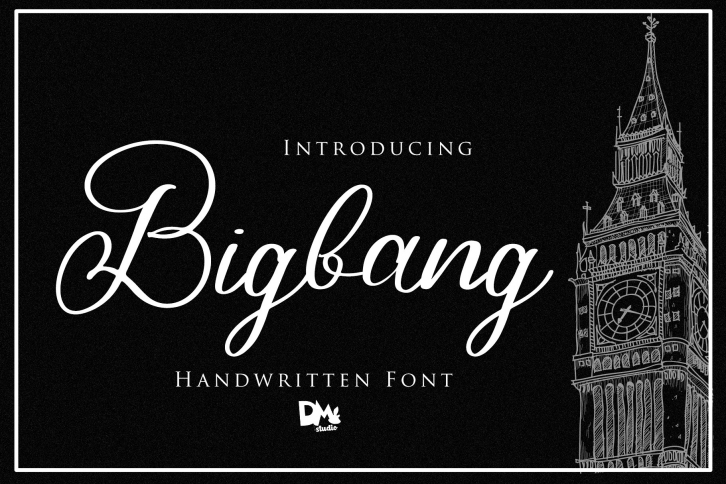
Introducing, BigBang Handwritten font
It's a modern and natural script font inspired by vintage style of handwritting. It's unique, quirky yet still classy. Great choice for card, invitation, website, quote, promotion, monogram logo and much more.